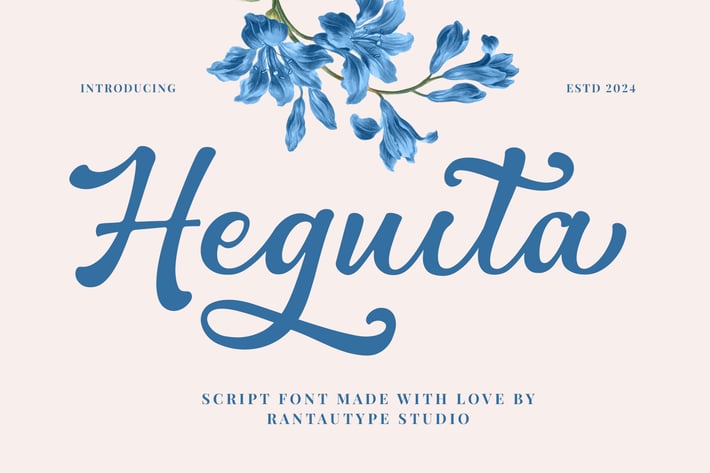
Heguita Modern Script Font
Heguita is modern script font with with soft flow curve. Heguita bring handwritten vibes more attractive for you design project. We keep this font look modern, classy and easy to use.
Heguita is perfectly choice for any creative endeavor, chic, lifestyle design such as logos, title, watermark on photography, cover, branding, display and magazine, wedding event, corporate brand, quotes, album cover, business card, business project and many other design project with handwritten taste.
Ligature and alternate